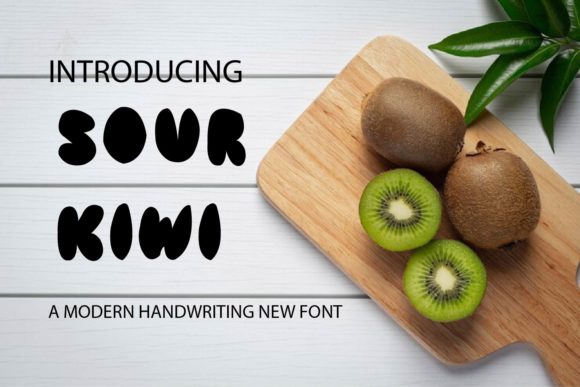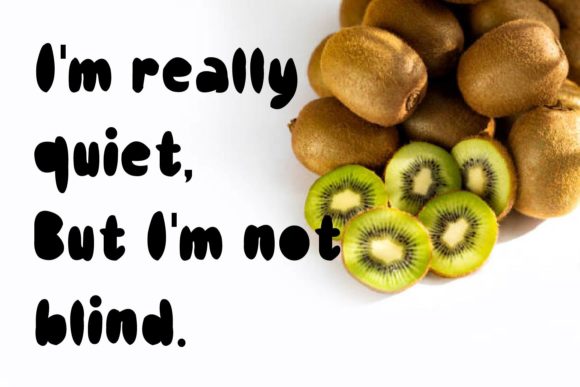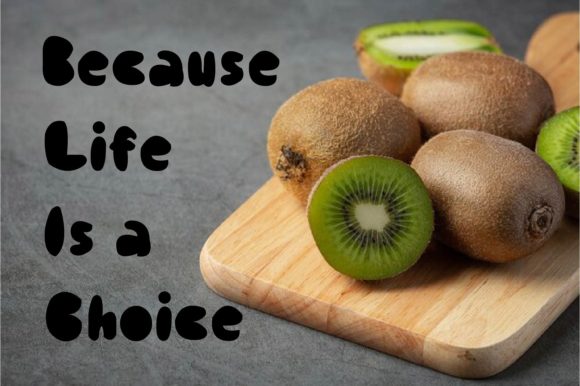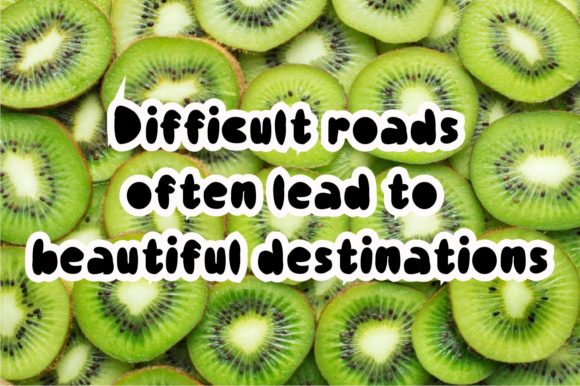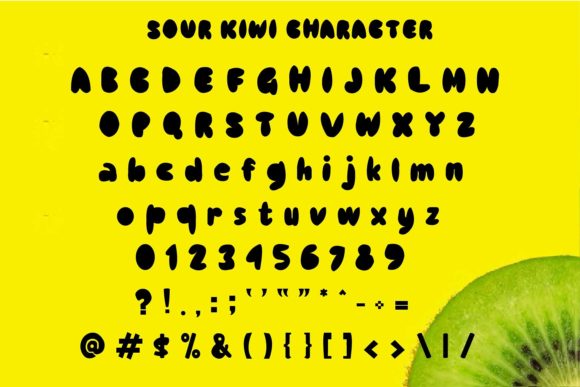
Sour Kiwi Font
About Sour Kiwi Font
Sour Kiwi is a lovely and timeless handwritten font. It is the best choice for creating eye catching logos, branding and quotes. Every letter has a unique and beautiful touch, which will make your design come alive!